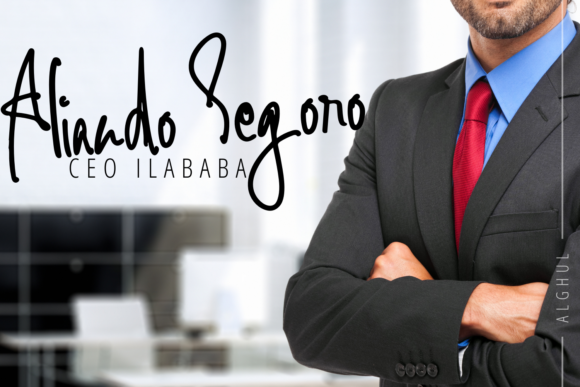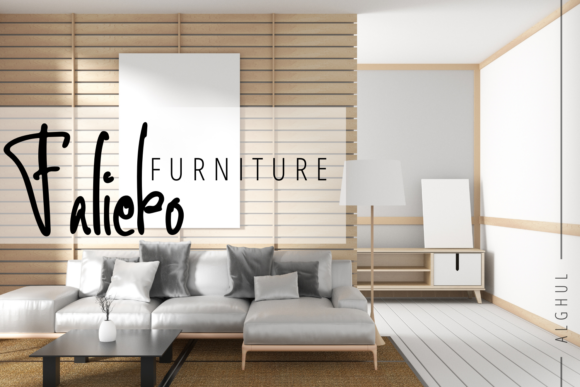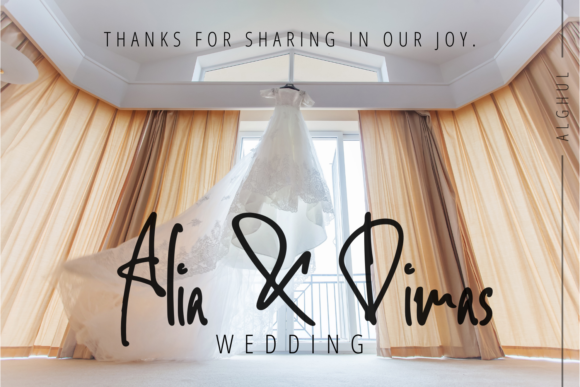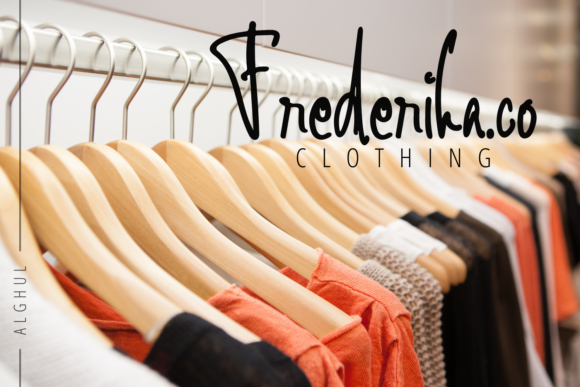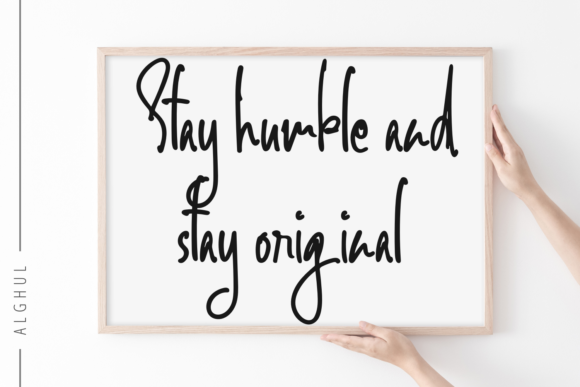
Unleash Your Creativity with the Timeless Alghul Signature Font
Enter the Alghul Signature Font, a masterfully crafted handwritten font that seamlessly blends classic calligraphy with a modern, fresh twist. This exquisite font is designed to elevate your projects to new heights, adding a touch of sophistication and elegance to any design. For designers, the Alghul Signature Font is a valuable asset, providing a versatile tool to create stunning visuals that capture attention and convey emotion.
- Unique Characteristics: Alghul Signature Font features a unique blend of modern and traditional design elements, including intricate flourishes and ornate details.
Designer Review: Alghul Signature Font
I recently had the chance to work with the Alghul Signature Font, and I must say it’s a beautiful addition to any design project. ✨ The elegant script style and intricate details make it perfect for creating a luxurious or high-end feel. The font’s versatility allows it to be used in a variety of contexts, from wedding invitations to luxury brand logos.
One of the standout features of the Alghul Signature Font is its exceptional legibility. ✨ The font’s design ensures that the text is easy to read, even at smaller font sizes, making it ideal for use in body text or small print. Additionally, the font’s bold and italic styles add a touch of sophistication and elegance to any design.
- ⚠️ Limited character set: The font’s character set is somewhat limited, which may cause issues when working with non-English text.
- ⚠️ Not ideal for body text: While the font’s legibility is excellent, it may not be the best choice for large blocks of body text due to its elegant and ornate design.
Overall, I’m impressed with the Alghul Signature Font. It’s a beautiful and versatile font that’s perfect for adding a touch of elegance and sophistication to any design project. While it may have some limitations, its exceptional legibility and beautiful design make it a great choice for many designers.
The Alghul Signature Font is ideal for creating unique and stylish signatures, logos, and branding materials. It can also be used for creating invitations, social media graphics, and other visual content. To get the most out of this font, experiment with different font sizes, colors, and styles to create a cohesive look.